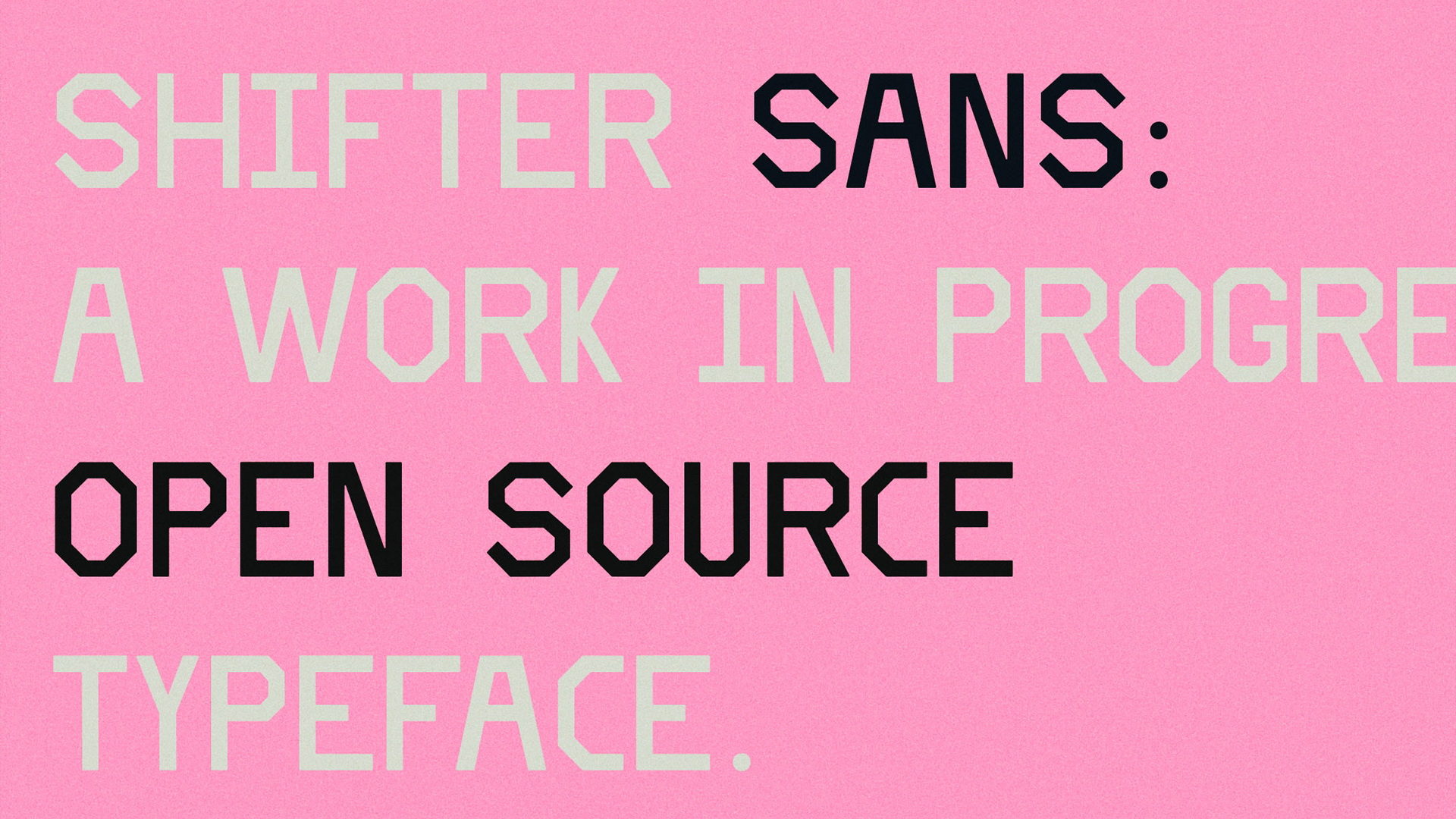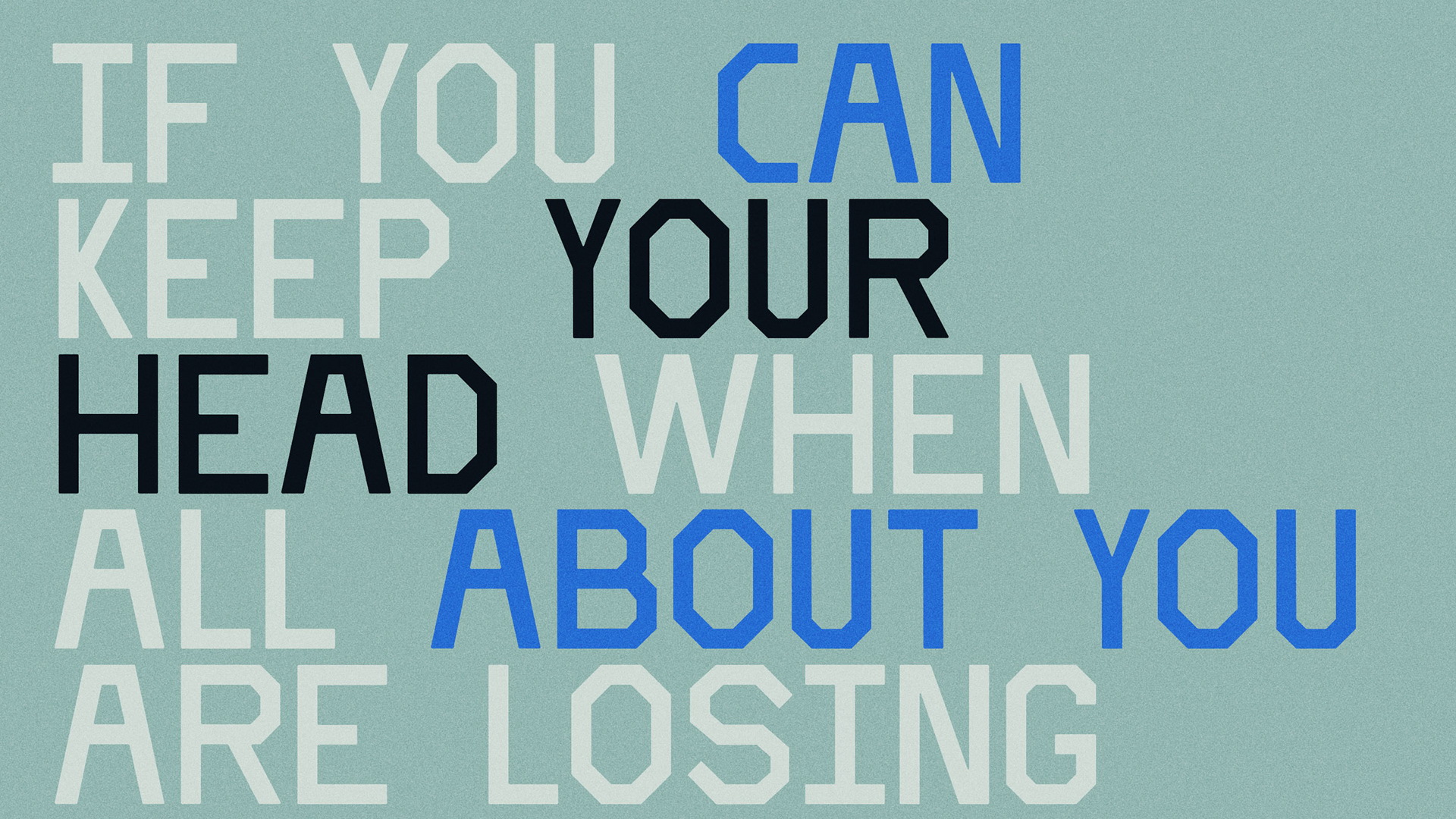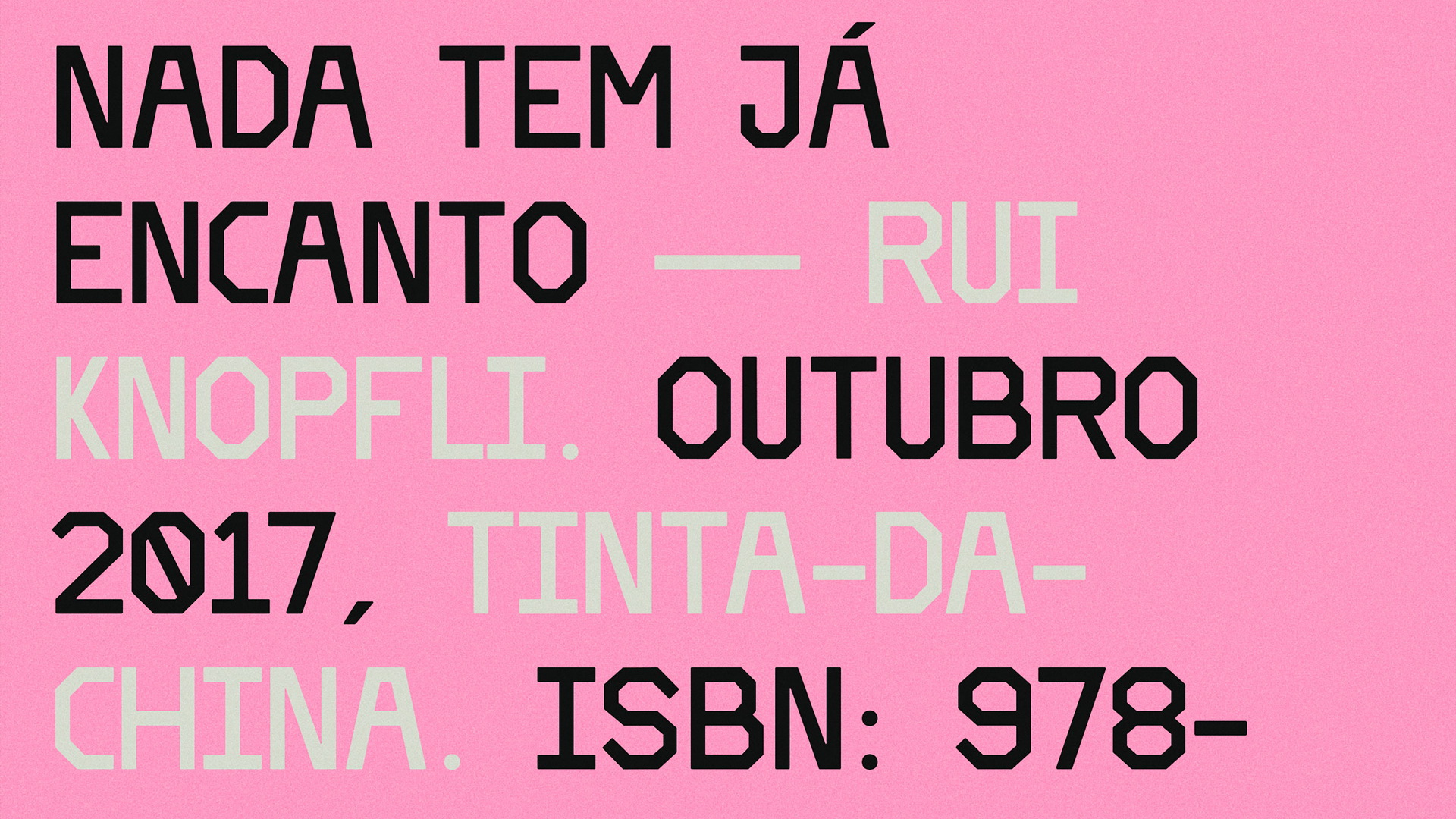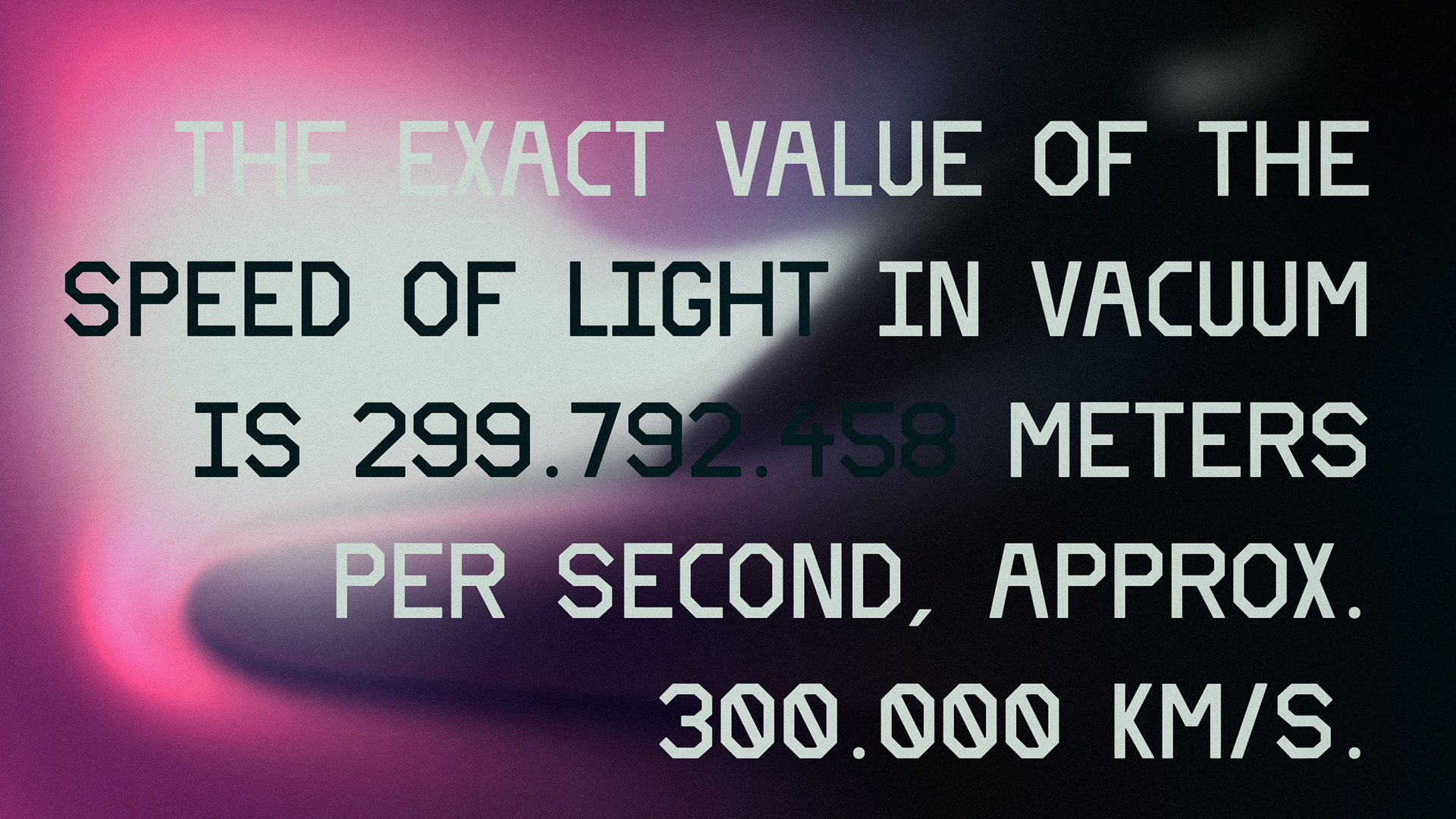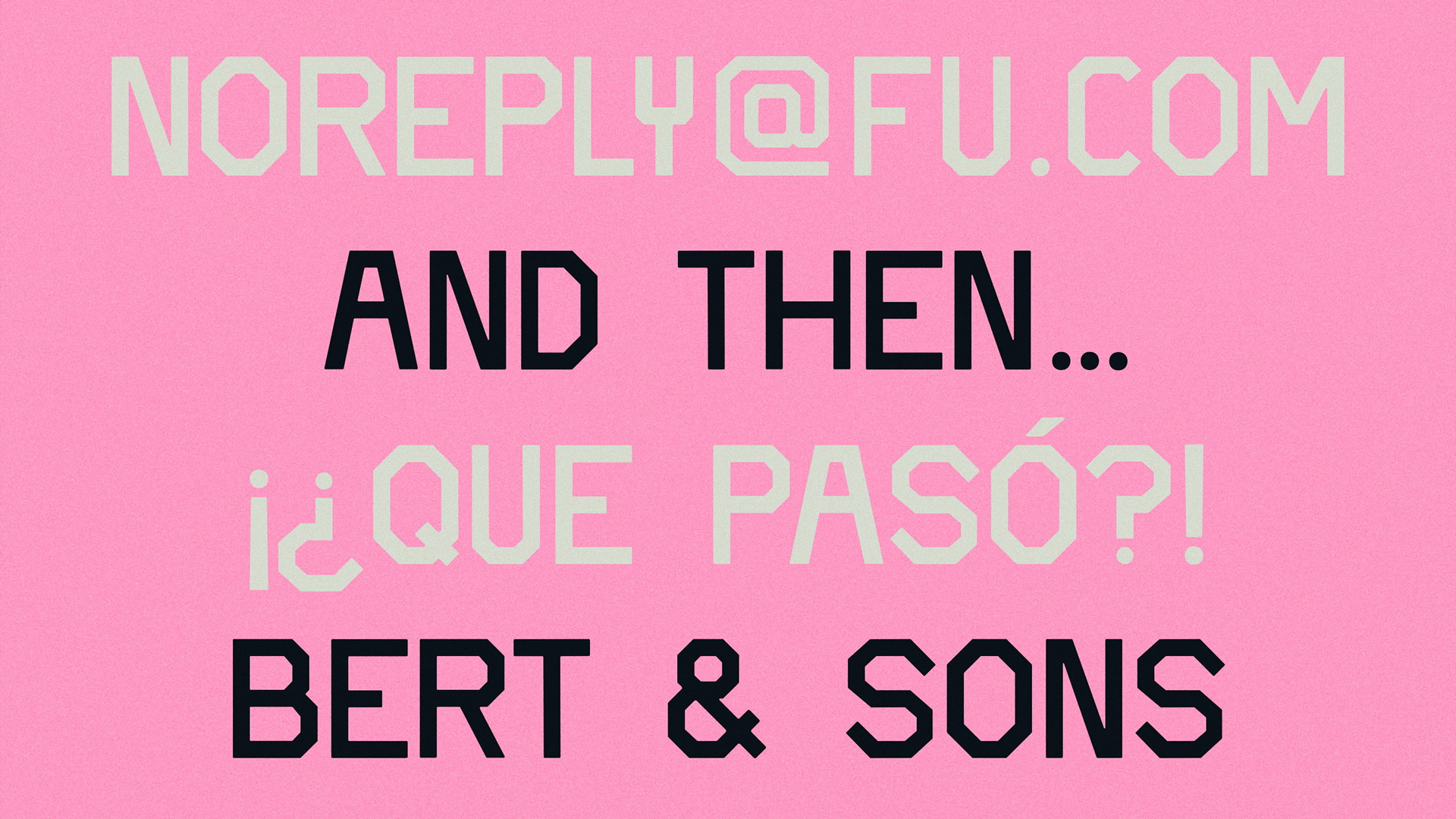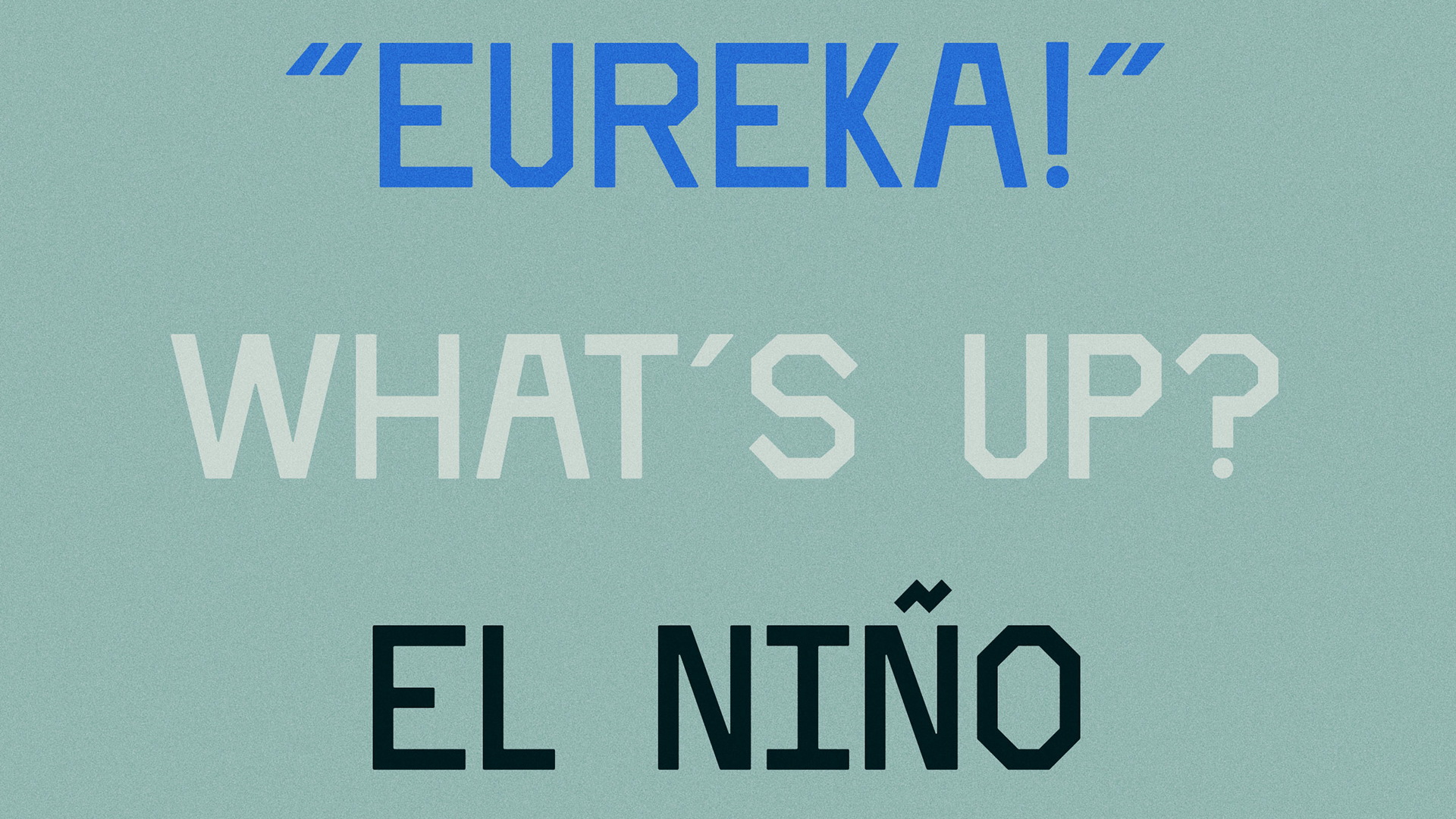
Shifter Sans is a display typeface that is being designed as one of the cornerstones of the rebranding effort by Portuguese independent media company Shifter.
The typeface was conceived as both vehicle and symbol for how Shifter defines itself: cooperative, creative, independent. The new Shifter logo is also set in Shifter Sans. The project was art directed by João Ribeiro and Daniel Hoesen.
Shifter Sans is a typography that has no need to come up with the product all refined, gives body to the phrases that define the brand with attitude, rigor and clarity, always leaving a side open to criticism and interaction translated into its simple and elastic design.